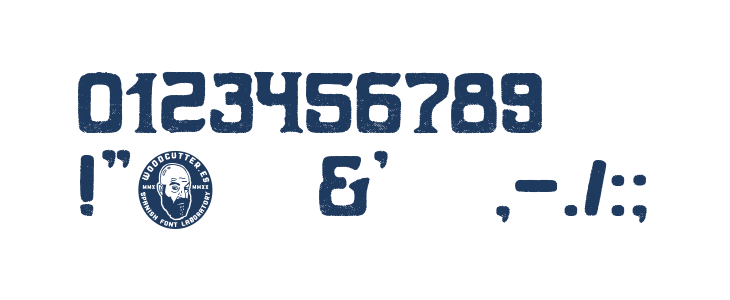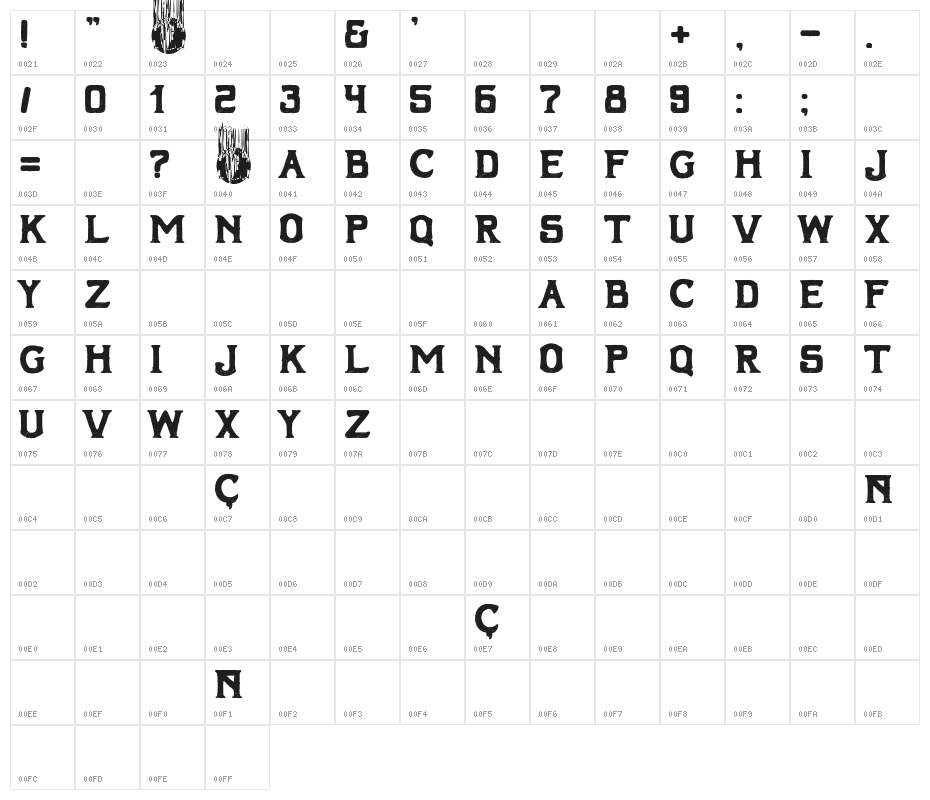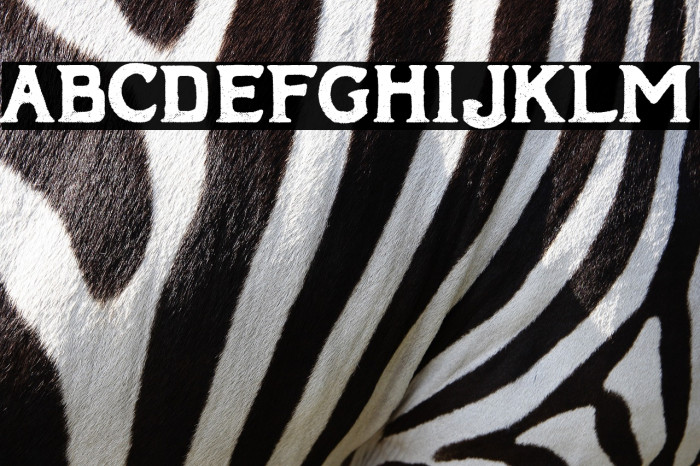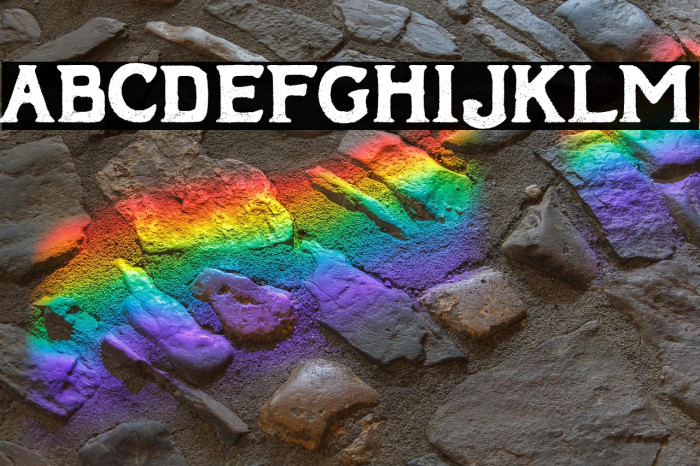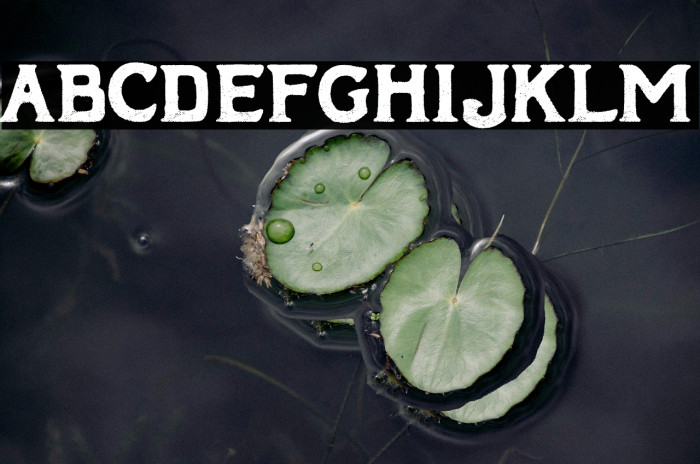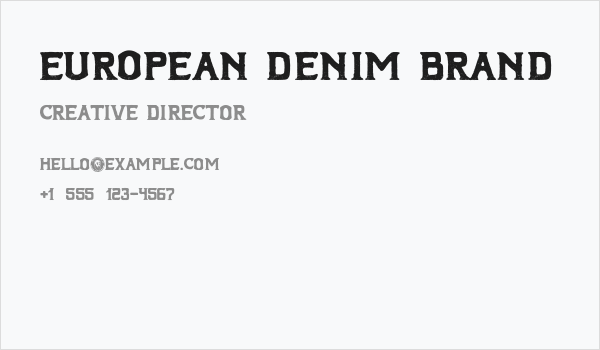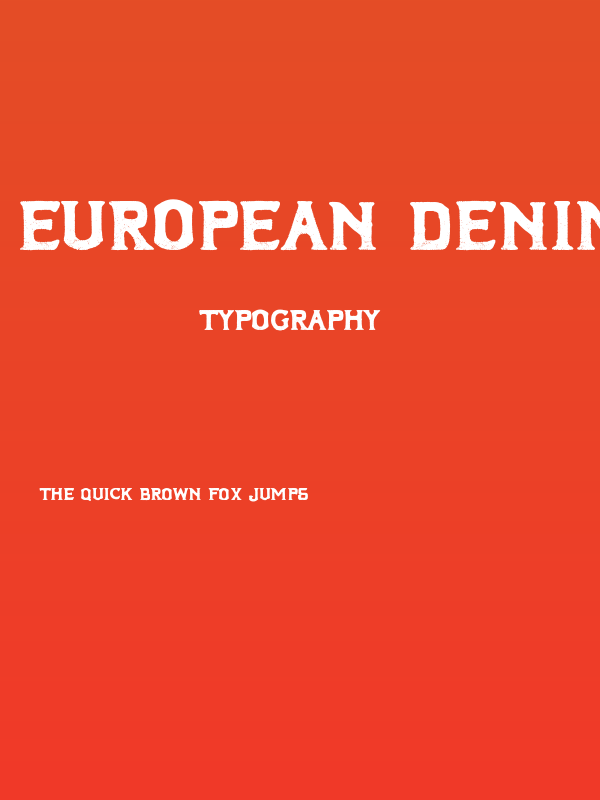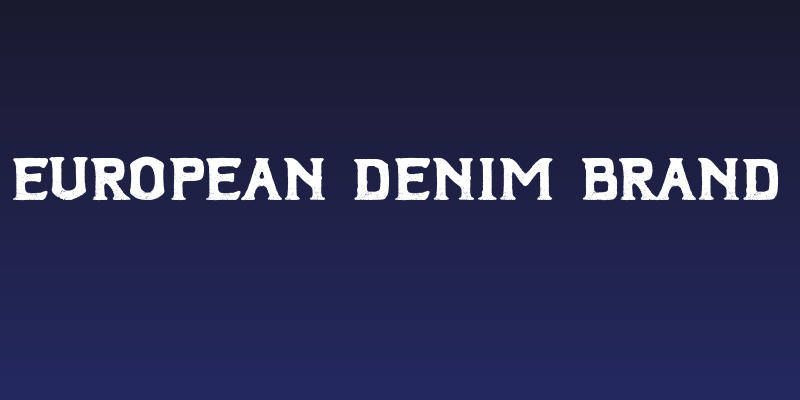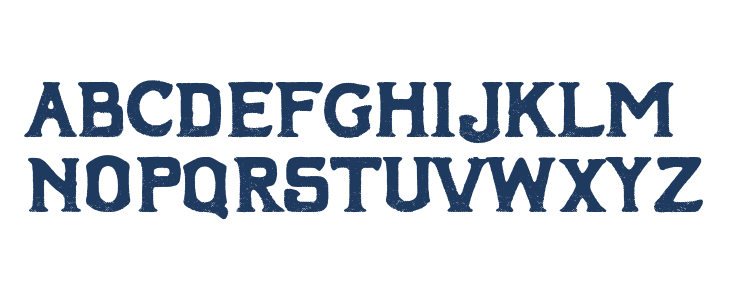
European Denim Brand Font
European Denim Brand Description
This font features a bold and rugged style, reminiscent of vintage denim branding. The characters are thick and slightly distressed, giving them a worn, textured appearance that adds to their rustic charm. The uppercase letters are uniform in height, with strong, angular lines and a slight serif that enhances their sturdy look. The numbers and special characters maintain the same boldness and texture, ensuring consistency across all elements. This font's unique style makes it ideal for projects that require a touch of vintage flair and robustness.
| Use Case | Logos, Headlines, Branding |
| Proposed Projects | Ideal for branding, apparel design, posters, and signage that require a vintage or industrial feel. |